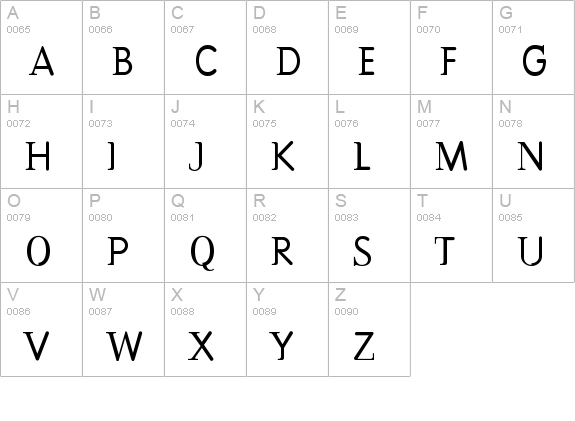
DeadHistoryRoman Font Details
DeadHistoryRoman font is a timeless and elegant typeface that draws inspiration from ancient Roman inscriptions. Its classic and sophisticated design makes it perfect for a wide range of projects, from historical publications to elegant invitations. The sharp serifs and clean lines give it a sense of authority and timelessness, making it a versatile choice for designers looking to add a touch of old-world charm to their work. Best of all, DeadHistoryRoman font is completely free to download at FontsMarket.com. Whether you're a seasoned designer or just starting out, this font is a valuable addition to your collection. Don't miss out on the opportunity to enhance your projects with this beautiful and timeless typeface. Download DeadHistoryRoman font today and bring a touch of ancient Rome to your designs.